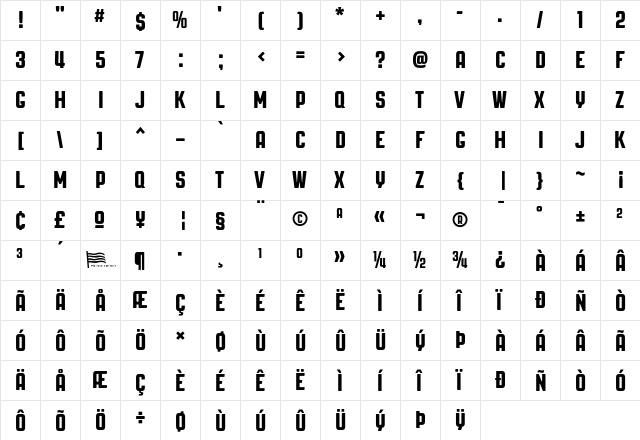
PAG Revolucion Regular
| Foundry | Ryoichi Tsunekawa |
| Designer | Ryoichi Tsunekawa |
Design Context for PAG Revolucion Typeface
PAG Revolucion is a composed and adaptable typeface that performs quietly and consistently across a wide range of design contexts.